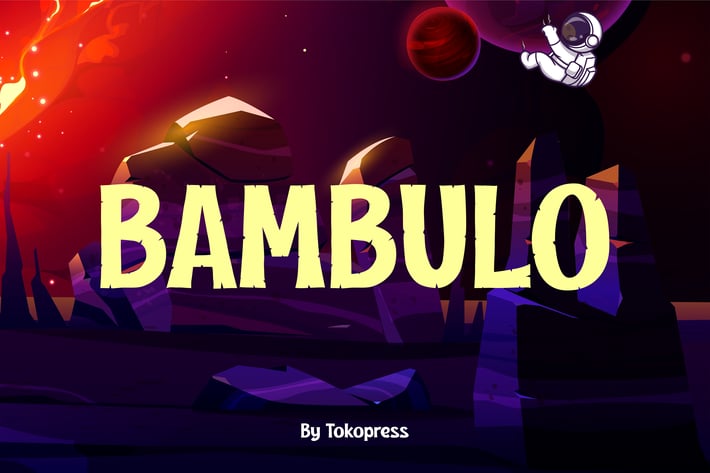
Gaming Font - Bambulo
BAMBULO – Playful Space Adventure
BAMBULO is a bold, playful display typeface with a bouncy baseline, smooth curves, and intergalactic spirit—designed to spark curiosity and storytelling in every letter. Its rounded structure and expressive flow make it perfect for space-themed projects, fun branding, or anything that needs a youthful, high-energy vibe. The bold proportions and slightly quirky alignment add a handcrafted, comic-style flair, ideal for kid-centric and imaginative contexts.
Whether you're designing a science-themed kids' book, educational poster, adventure game UI, or vibrant back-to-school campaign, BAMBULO brings playful excitement to your message. Its spacey, whimsical tone is perfect for attracting young audiences or injecting creative energy into visual storytelling—while maintaining readability and visual punch for headlines and large-format layouts.
Key Features :
Rounded, expressive characters with joyful movement
Bouncy baseline and bold weight for high visual impact
Perfect for themes like space, exploration, kids, or fantasy
Adds a handcrafted, cartoonish touch without losing legibility
Versatile enough for logos, posters, book covers, and games